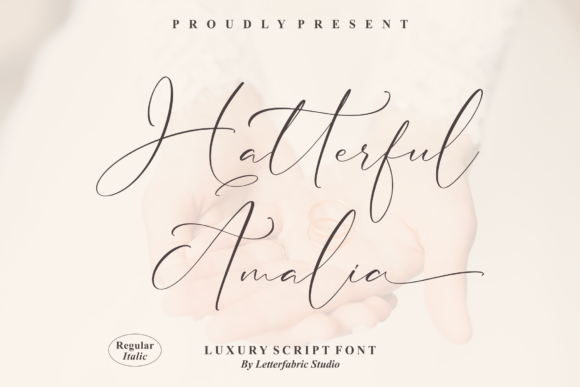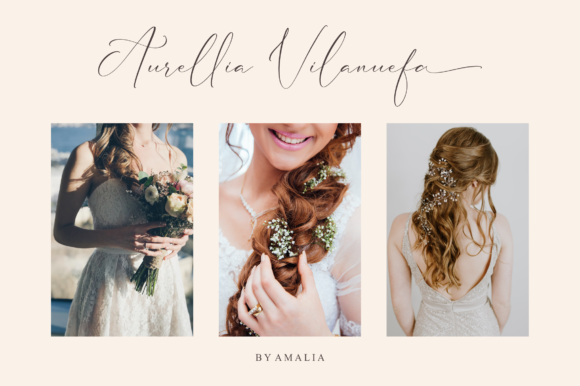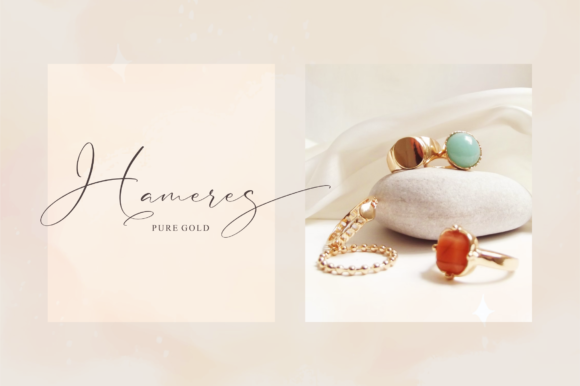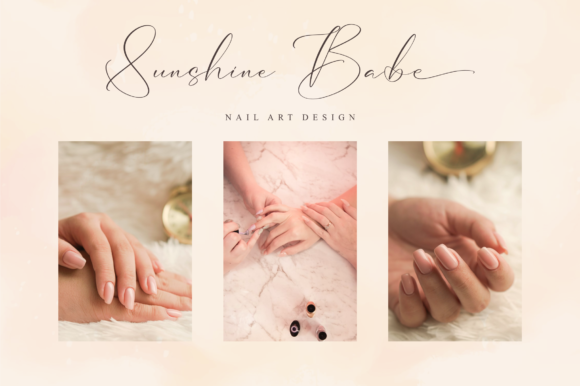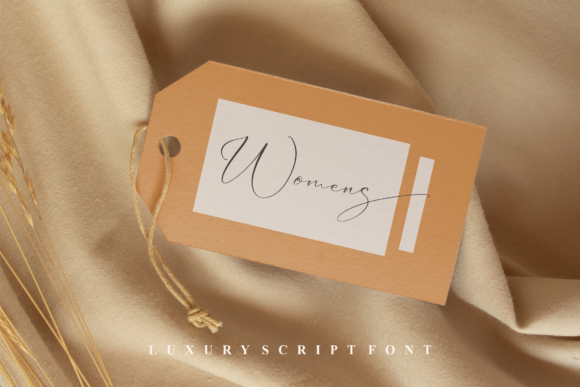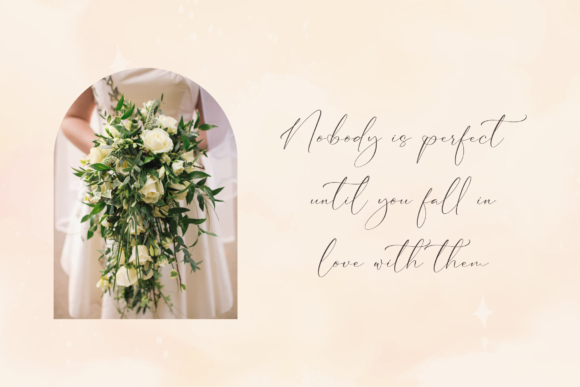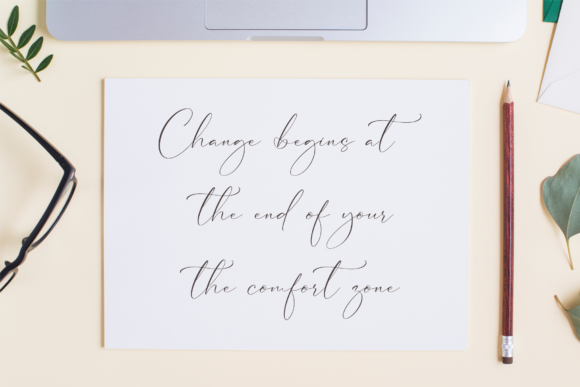
As designers, we’ve all been there – staring at a blank canvas, struggling to find the perfect font to bring our vision to life. But what if that perfect script font was right in front of us, waiting to be discovered? For those of us who crave elegance and sophistication in our designs, the Hatterful Amalia Font is a dream come true.
This beautiful script font is not just a pretty face – it’s a versatile tool that’s perfect for a wide range of projects, from logos and branding to labels and special events. With its delicate, fashionable lines and PUA encoding, accessing all of its glyphs and swashes is a breeze. Whether you’re a seasoned pro or just starting out, the Hatterful Amalia Font is a valuable addition to any designer’s toolkit.
Hatterful Amalia Font Key Features
- Font Family: Hatterful Amalia
- Unique Characteristics: This script font features whimsical and playful letterforms, perfect for creating a sense of wonder and magic in your designs. It includes a wide range of glyphs, including Latin and Cyrillic alphabets, punctuation, and diacritical marks.
Hatterful Amalia Font Review
I’ve had the chance to work with the Hatterful Amalia font, and I must say it’s a delightful addition to any design project. ✨ The flowing curves and whimsical feel immediately evoke a sense of playfulness, making it perfect for creative and artistic endeavors.
One of the standout features of this font is its versatility. ✨ It works well for both digital and print media, and its scalability means it can be used in a variety of contexts, from large headings to small body text. I’ve found it particularly effective for designing children’s books, advertisements, and even wedding invitations.
- ⚠️ Limited support for certain languages: Unfortunately, the Hatterful Amalia font doesn’t support all languages, which may be a limitation for global design projects.
- ⚠️ Not ideal for formal or professional settings: While the font is great for creative projects, it may not be the best choice for formal or professional contexts, such as business reports or academic papers.
Overall, I’m impressed with the Hatterful Amalia font’s charm and flexibility. While it may have some limitations, it’s a great addition to any designer’s toolkit, and I would definitely recommend it for creative and artistic projects.
Getting the Most Out of Hatterful Amalia Font
For optimal results, use Hatterful Amalia Font in combination with high-quality images and a well-designed layout.
Experiment with different font sizes and styles to create visual interest and emphasis.
Hatterful Amalia Font is ideal for:
- Magazine and newspaper headlines
- Book and e-book covers
- Marketing and advertising materials
Alternatives to Hatterful Amalia Font
The Great Vibes Font is a modern, elegant script font that is perfect for creating a sophisticated and stylish look. It is ideal for use in branding, invitations, and other design projects where a touch of sophistication is needed. Compared to Hatterful Amalia Font, Great Vibes Font has a more refined and polished feel, making it suitable for high-end designs.
The Carolyna Pro Font is a elegant, high-end script font that is perfect for creating a luxurious and sophisticated look. It is ideal for use in branding, packaging, and other design projects where a touch of elegance is needed. Compared to Hatterful Amalia Font, Carolyna Pro Font has a more refined and polished feel, making it suitable for high-end designs.
The Alex Brush Font is a elegant, handwritten script font that is perfect for creating a personal and creative look. It is ideal for use in branding, invitations, and other design projects where a touch of personality is needed. Compared to Hatterful Amalia Font, Alex Brush Font has a more casual and relaxed feel, making it suitable for designs that require a more personal touch.